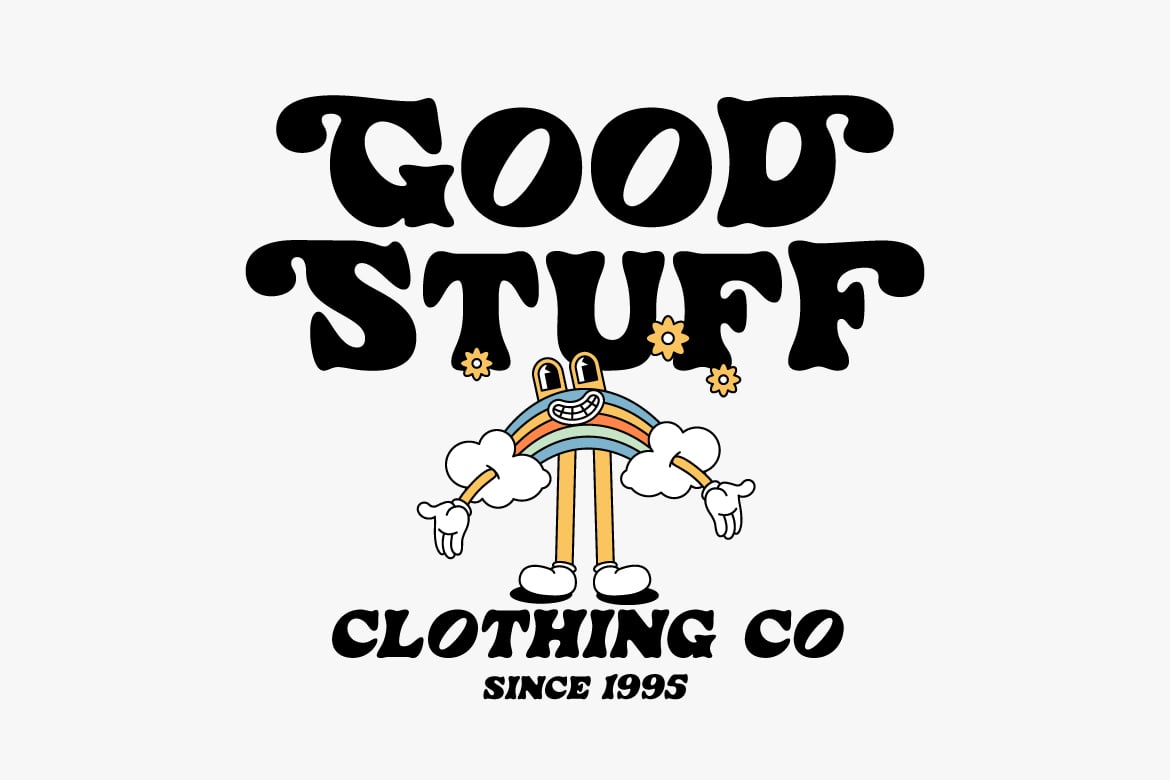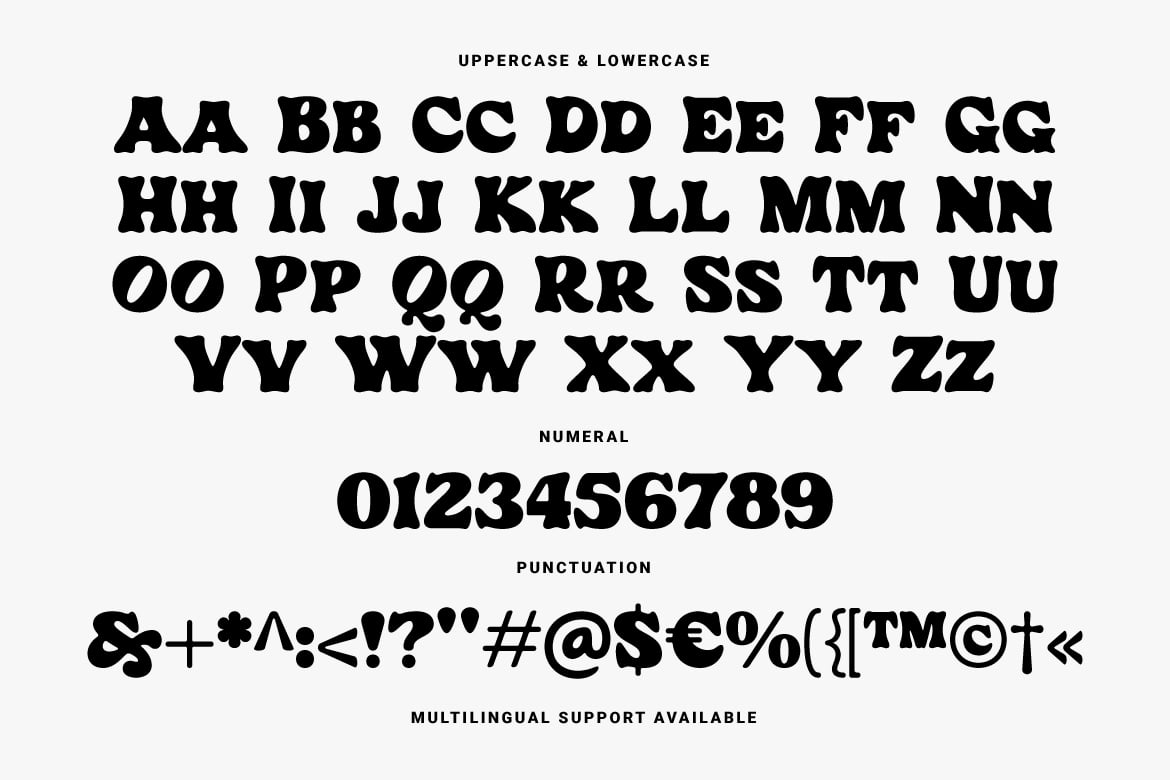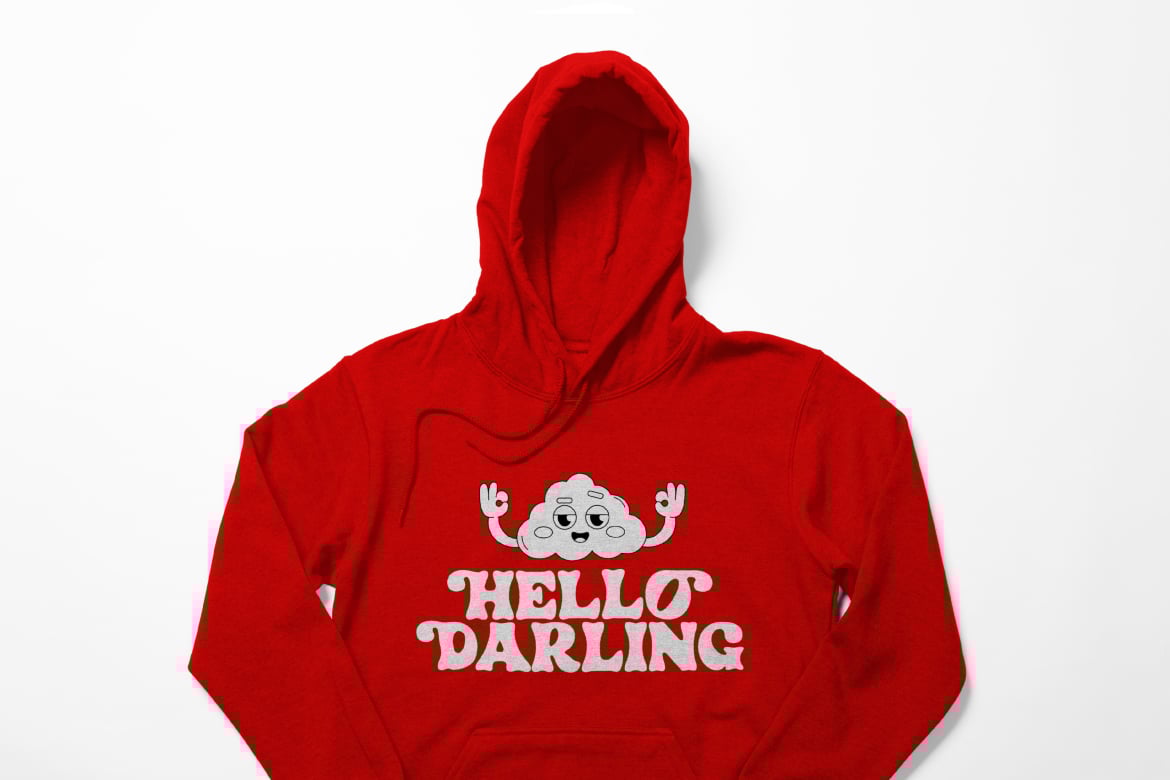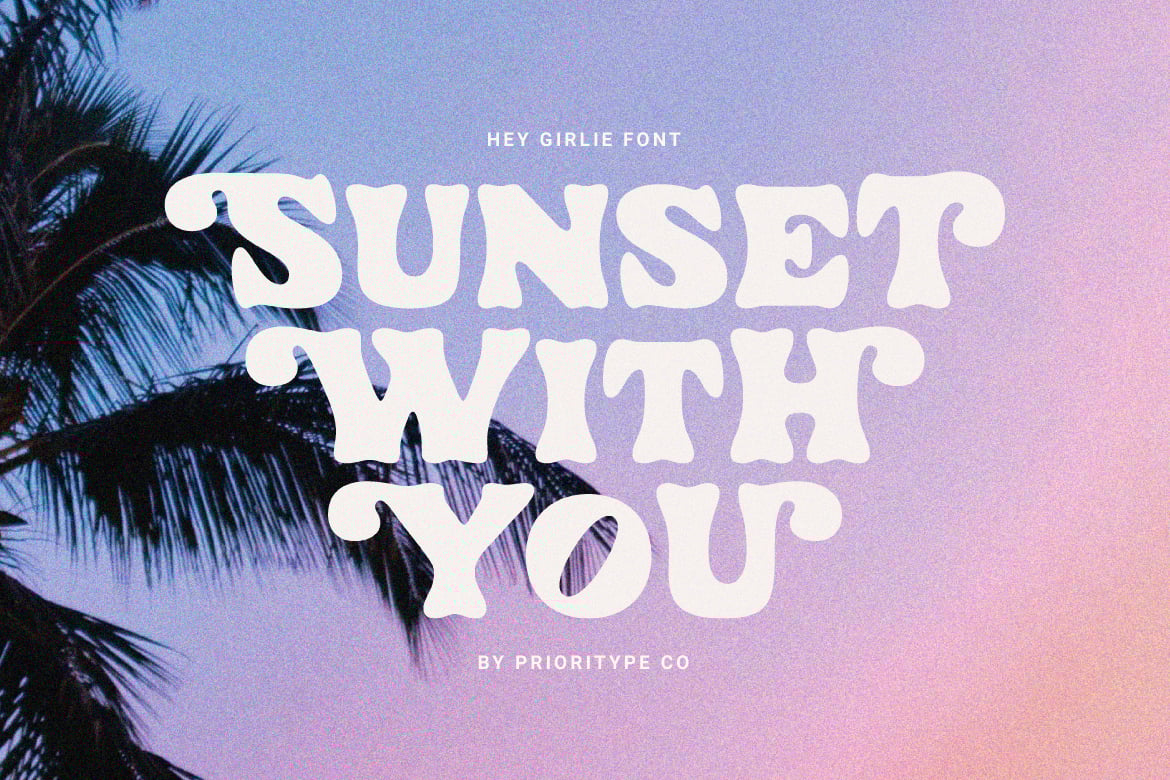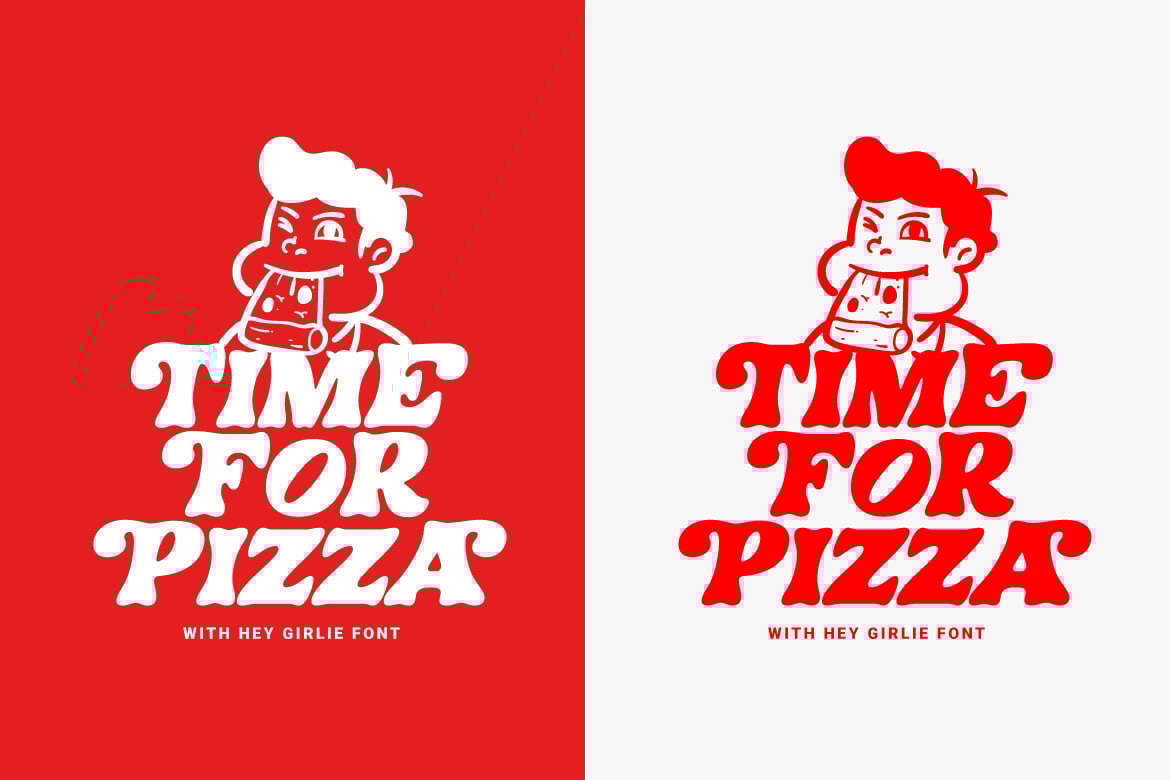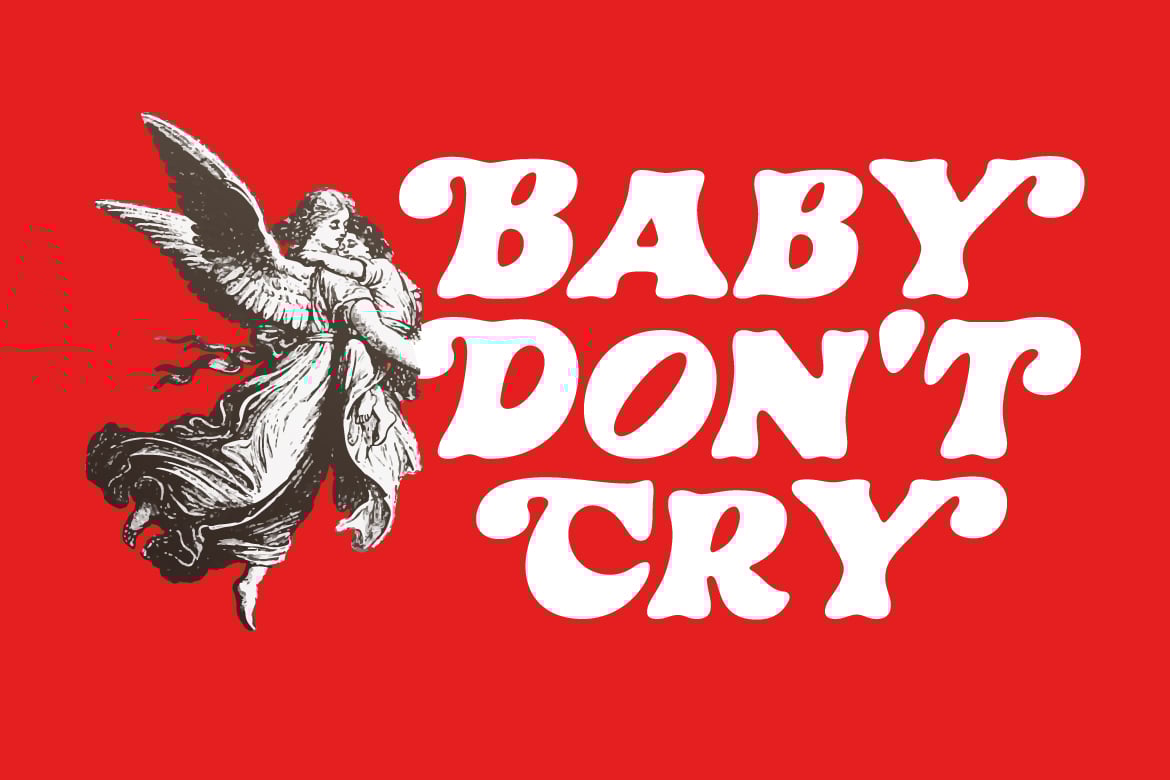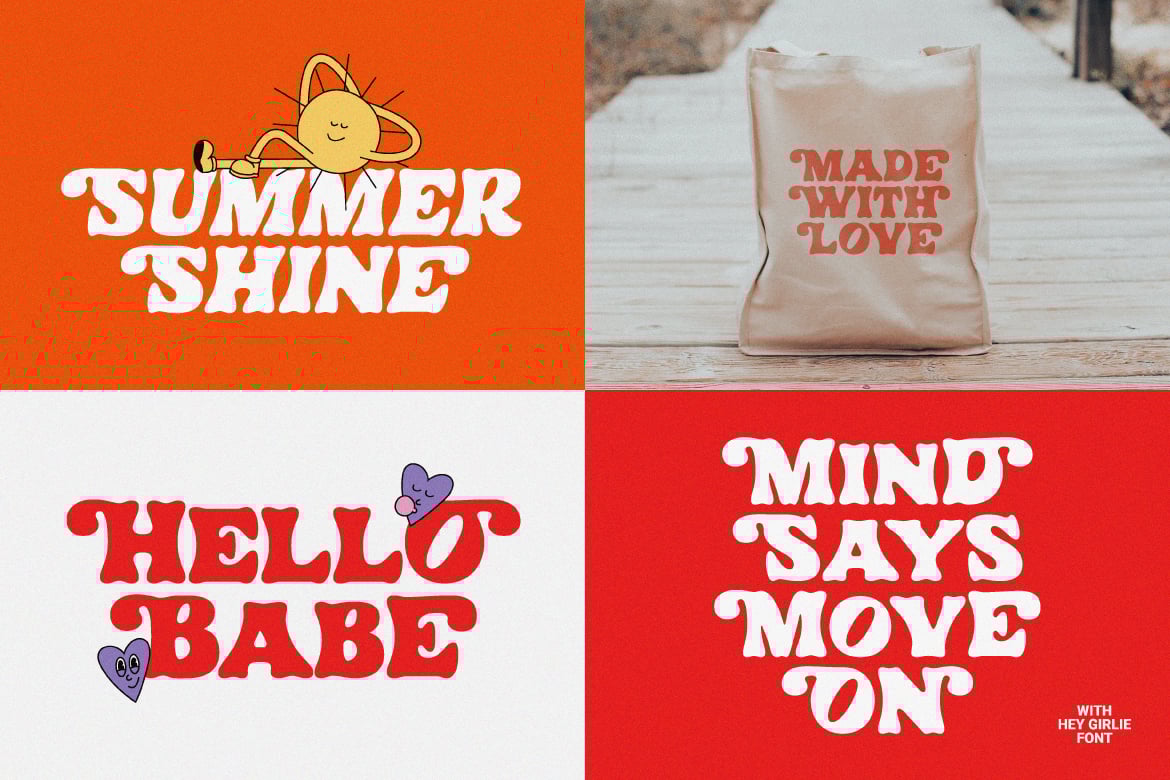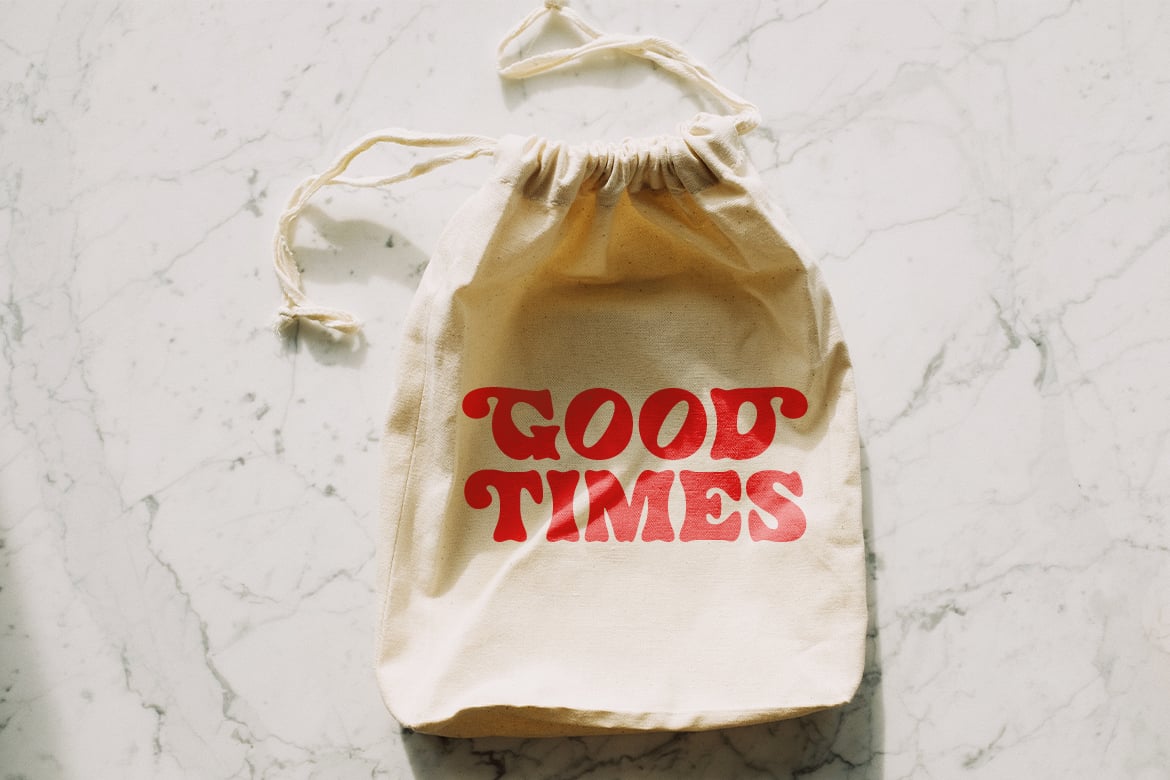
Hey Girlie – Display Font
Hey Girlie – Display Font.
Catchy display font is here. Equipped with alternative characters to expand your design style. There are two styles, namely regular and slant. Perfect for merchandise designs, posters, titles, stickers etc.
- Features: Uppercase, Lowercase, Numeral, Punctuation, Multilingual & Alternates.
- Multilingual contained: Afrikaans, Albanian, Asu, Basque, Bemba, Bena, Breton, Catalan, Chiga, Cornish, Danish, Dutch, English, Estonian, Filipino, Finnish, French, Friulian, Galician, German, Gusii, Indonesian, Irish, Italian, Kabuverdianu, Kalenjin, Kinyarwanda, Luo, Luxembourgish, Luyia, Machame, Makhuwa-Meetto, Makonde, Malagasy, Manx, Morisyen, North Ndebele, Norwegian Bokmål, Norwegian Nynorsk, Nyankole, Oromo, Portuguese, Quechua, Romansh, Rombo, Rundi, Rwa, Samburu, Sango, Sangu, Scottish Gaelic, Sena, Shambala, Shona, Soga, Somali, Spanish, Swahili, Swedish, Swiss German, Taita, Teso, Uzbek (Latin), Volapük, Vunjo, Zulu.